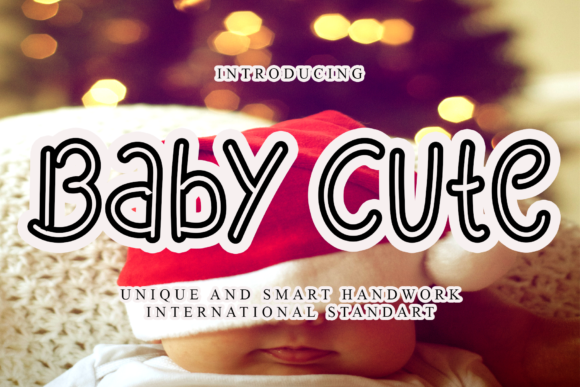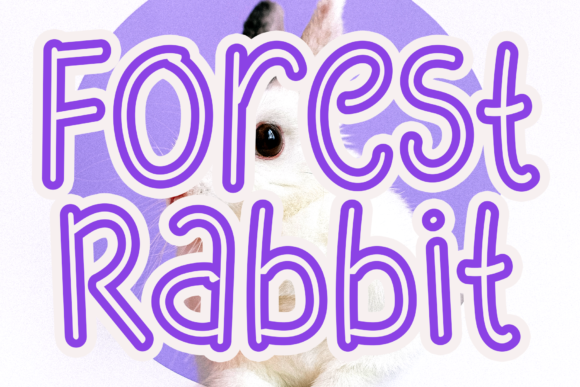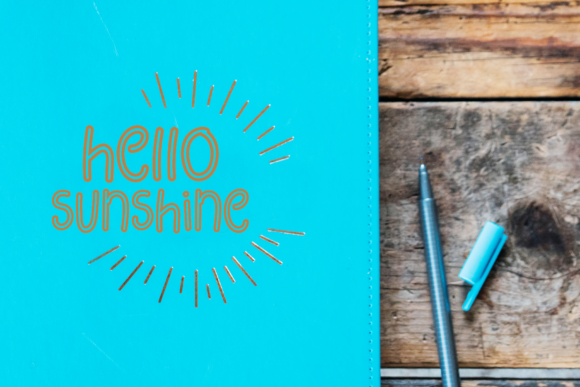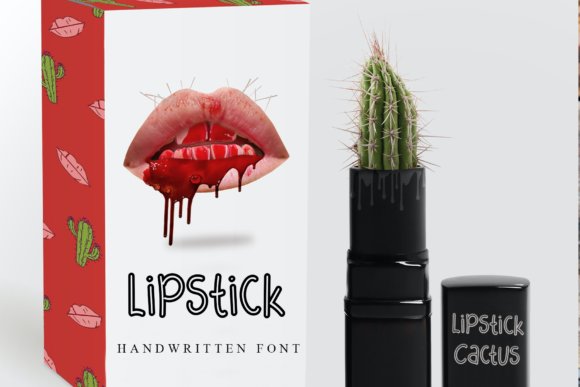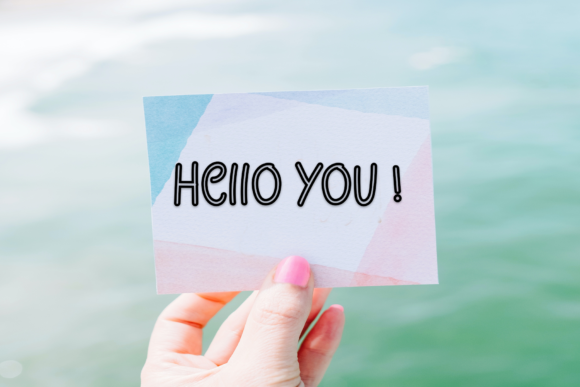
About Baby Cute Font
Baby Cute is a clean and friendly handwritten font. Its natural and unique style makes it incredibly fitting to a large pool of designs.